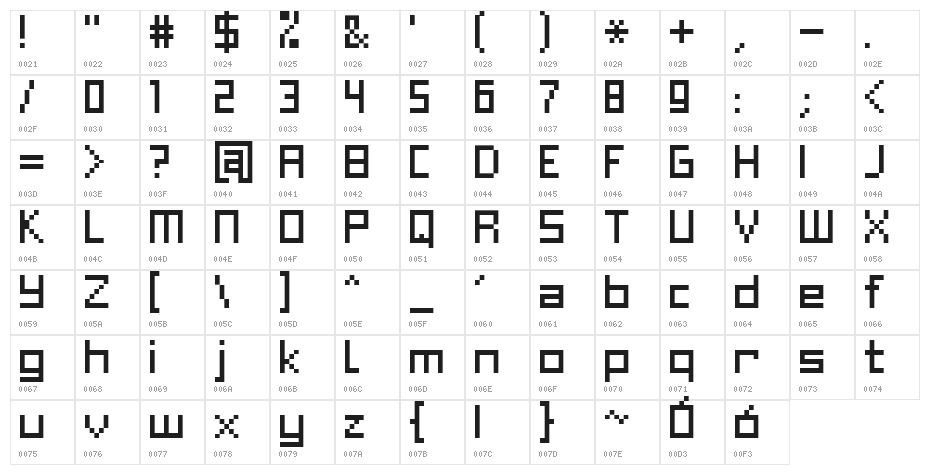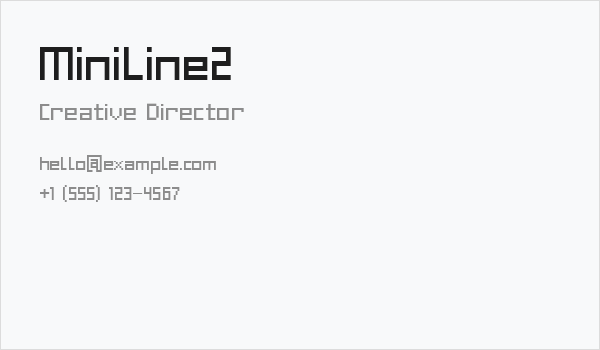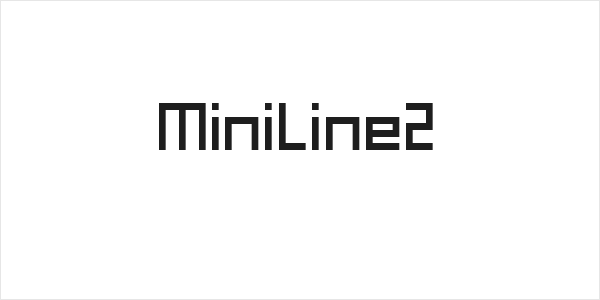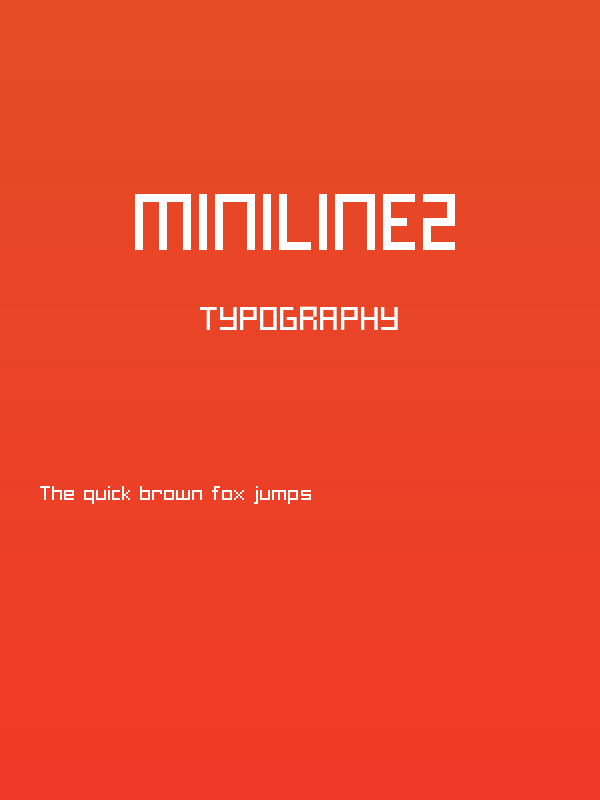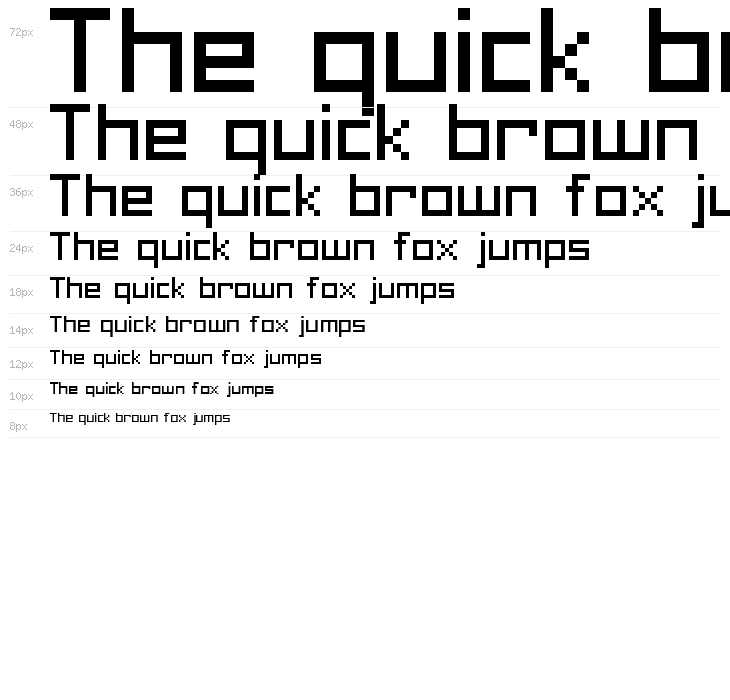
MiniLine2 Font
MiniLine2 Description
This font features a pixelated, blocky design reminiscent of early digital displays and video games. Each character is constructed with a uniform grid-like structure, giving it a distinctly retro and technological feel. The uppercase and lowercase letters maintain a consistent height, enhancing readability while preserving the font's unique style. Numerals and special characters are crafted with the same pixelated approach, ensuring a cohesive look across all elements. The font's geometric precision and simplicity make it ideal for projects that require a digital or retro aesthetic.
| Overall Style | Retro |
| Proposed Projects | Ideal for video game design, digital art projects, retro-themed posters, and tech-related branding. |